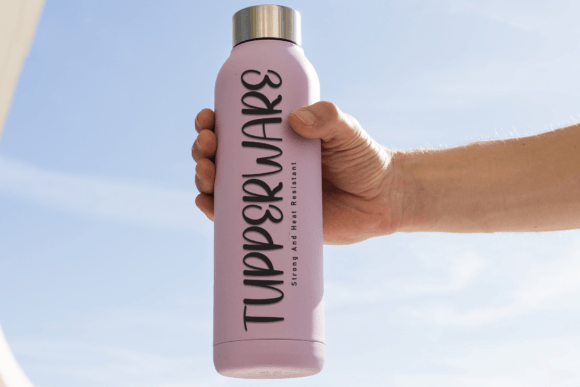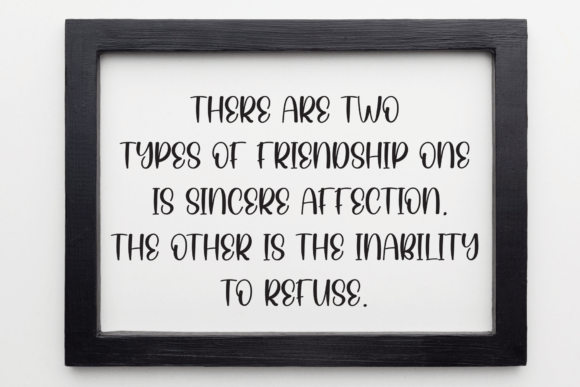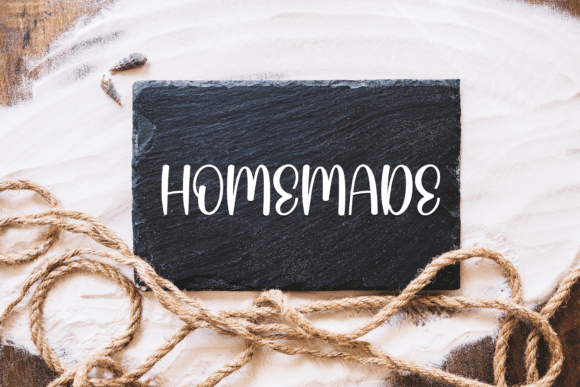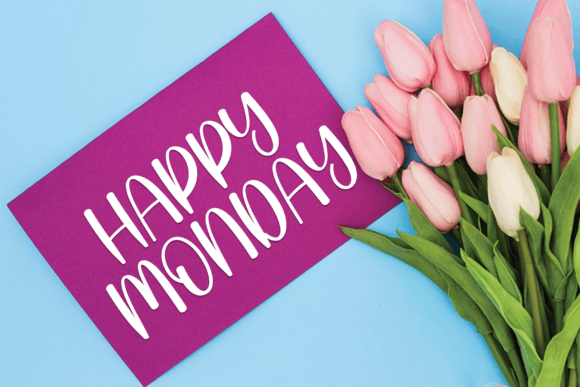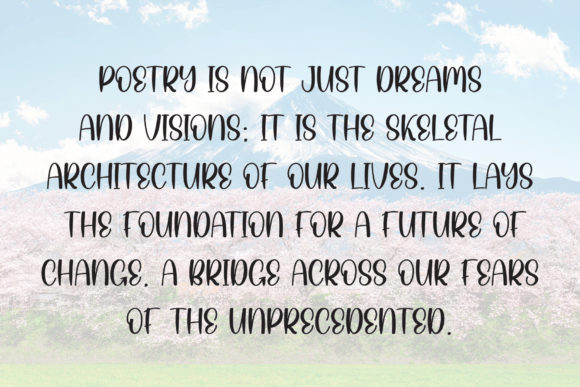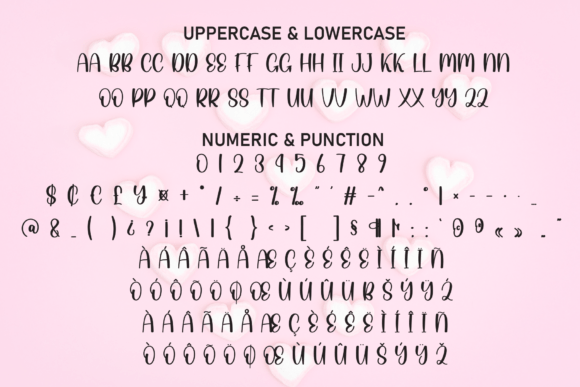
Where Fonts and Love Intersect
Have you ever stumbled upon a font that made you feel like you’re holding a piece of magic in your hands? For designers, that moment of serendipity can be a game-changer. It’s when a font speaks directly to your heart and whispers, ‘This is the one.’ For me, that moment arrived when I discovered the enchanting Barbie Love Font.
This delightful handwritten display font is a treasure trove of warmth and friendliness, making it perfect for crafting unforgettable wedding invitations, designing engaging cards, or adding a touch of whimsy to any design project. With its playful character, Barbie Love Font has the power to make any message irresistibly inviting, making it a valuable addition to any designer’s toolkit.
- Unique Characteristics: Barbie Love Font features a playful, cursive script with a mix of uppercase and lowercase letters, perfect for adding a touch of whimsy to designs.
- Font Style: The font is designed to resemble a handwritten script, with subtle variations in letterform and spacing to create a natural, flowing feel.
Barbie Love Font Review
As a designer, I was excited to dive into the “Barbie Love Font” and see what it had to offer. Here’s my honest review.
- The font’s playful and whimsical feel is perfect for projects that need a touch of nostalgia and femininity.
- The font’s bold and cursive lines create a beautiful contrast that makes it stand out.
- The font may not be suitable for projects that require a more professional or modern look.
- The font’s bold lines may not be ideal for projects with small text sizes or tight line spacing.
The “Barbie Love Font” is a charming and versatile font that is perfect for designers who want to add a touch of whimsy and femininity to their projects. While it may not be suitable for all projects, it’s a great addition to any designer’s toolkit.
The “Barbie Love Font” is ideal for:
- Social media posts and graphics.
- Party invitations and decorations.
- Children’s educational materials.